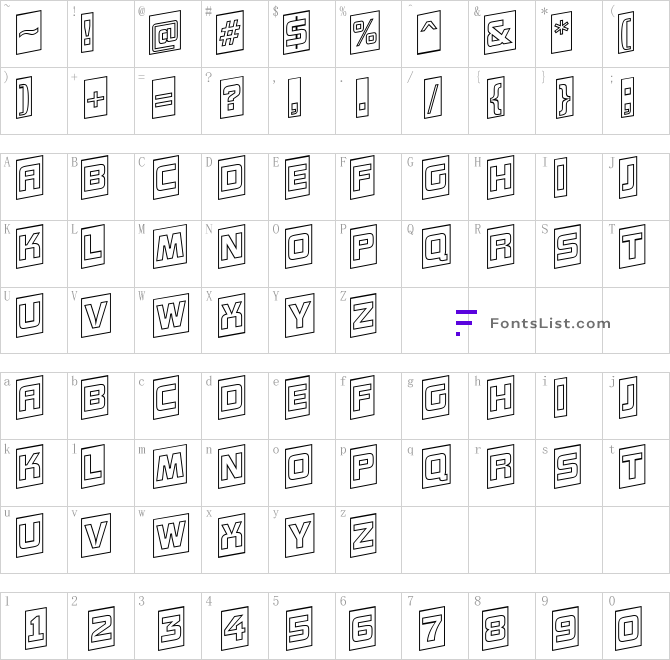
a_ConceptoTtlCmOtlUpNr.ttf is a very beautiful artistic font, a_ConceptoTtlCmOtlUpNr.ttf is widely used in the design and printing of various books and pictures,a_ConceptoTtlCmOtlUpNr.ttf has a strong visual impact,a_ConceptoTtlCmOtlUpNr.ttf is a commonly used font in newspapers, magazines and books, and is used in posters, e-commerce Poster design, store design, logo design, font design and other fields.a_ConceptoTtlCmOtlUpNr.